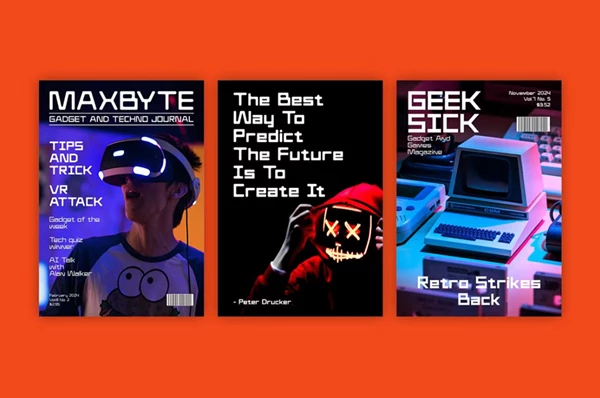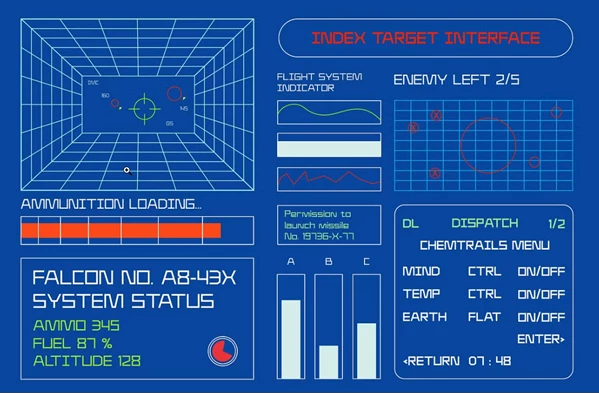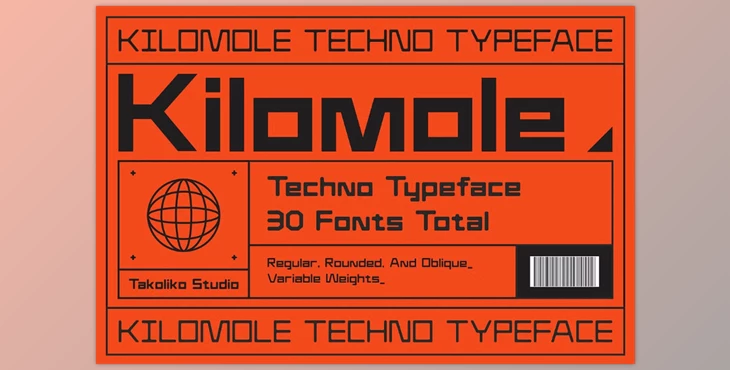
Kilomole-Techno Typeface:
Kilomole is a modern techno typeface that adds innovation to your design projects. It offers two distinct styles: regular and rounded—and this is great for diverse design ideas. As with all great moderns, Kilomole comes in a cubic shape that suggests strong, yet gentle, enduring structures and futuristic undertones. It has the brutal touch of urban sophistication and smooth future aesthetics and with that, it has undoubtedly earned its spot in every font library.
"Kilomole-Techno Typeface" Samples: